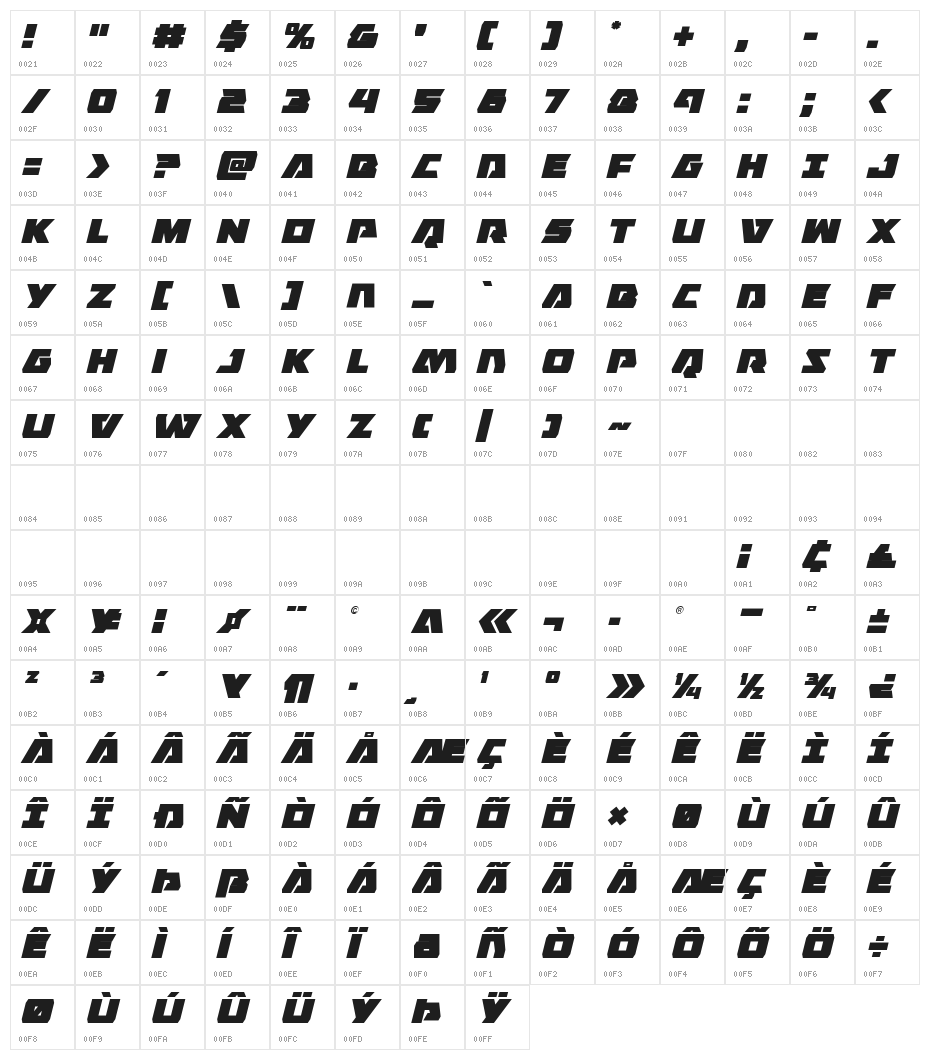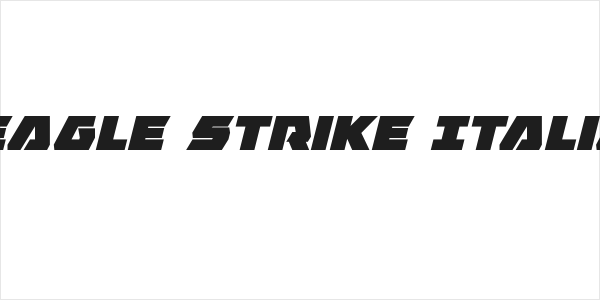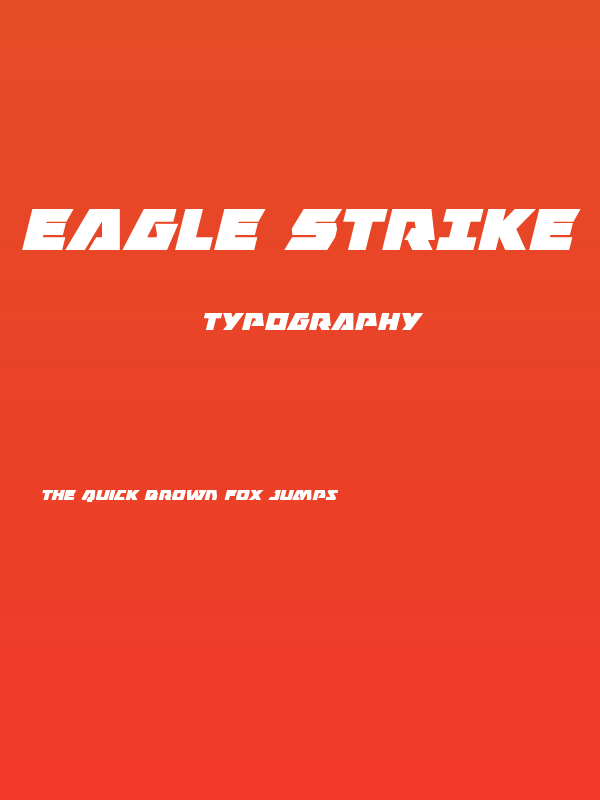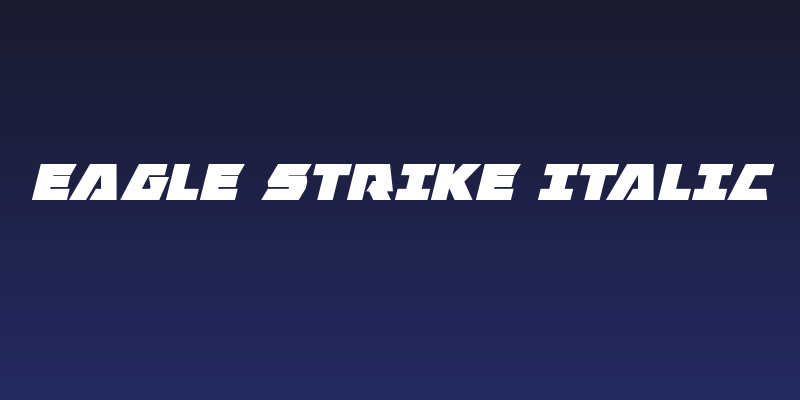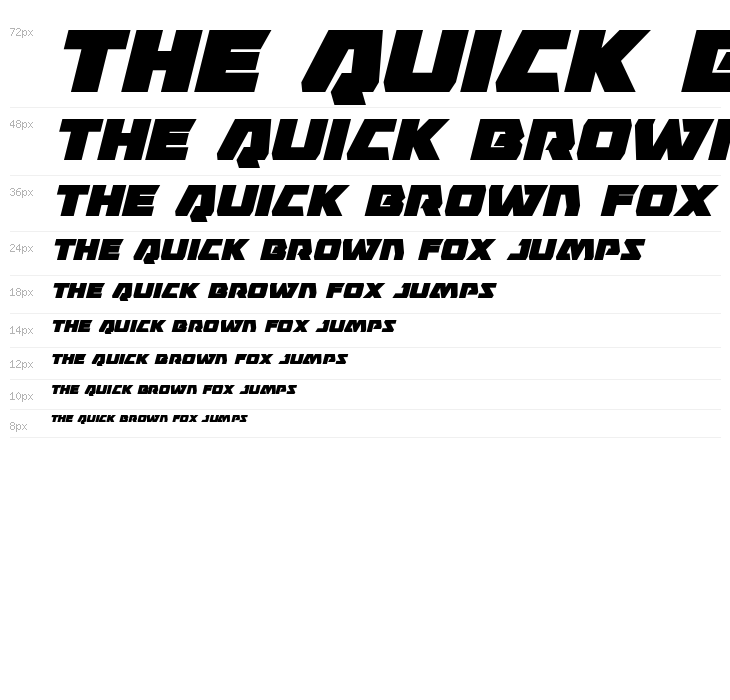
Eagle Strike Italic Font
Eagle Strike Italic Description
This font features a bold and dynamic style with sharp, angular edges that convey a sense of motion and energy. The italic slant adds to its aggressive and modern appearance, making it stand out prominently. The uppercase and lowercase letters maintain a consistent geometric structure, while the numbers and special characters complement the overall design. The font's strong presence and unique character make it suitable for impactful visual statements.
| Proposed Projects | Ideal for sports branding, action movie posters, video game titles, and dynamic logo designs. |